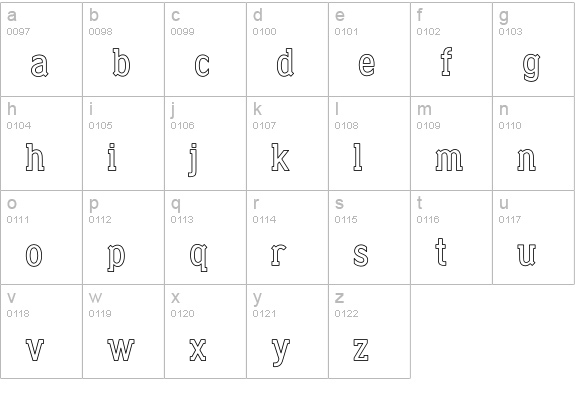
Clique-SerifOutlineBold Font Details
Clique-SerifOutlineBold is a modern and versatile typeface that exudes sophistication and elegance. With its bold outline design, this font is perfect for making a statement in your designs, whether it be for posters, branding, or web graphics. The sharp and clean lines of Clique-SerifOutlineBold provide a sleek and professional look that will captivate your audience. What makes Clique-SerifOutlineBold even more appealing is that it is available for free download at FontsMarket.com. This means you can add this eye-catching font to your collection without any cost, making it a valuable asset for your creative projects. So why wait? Enhance your designs with Clique-SerifOutlineBold today and make a lasting impression with its bold and distinctive style.